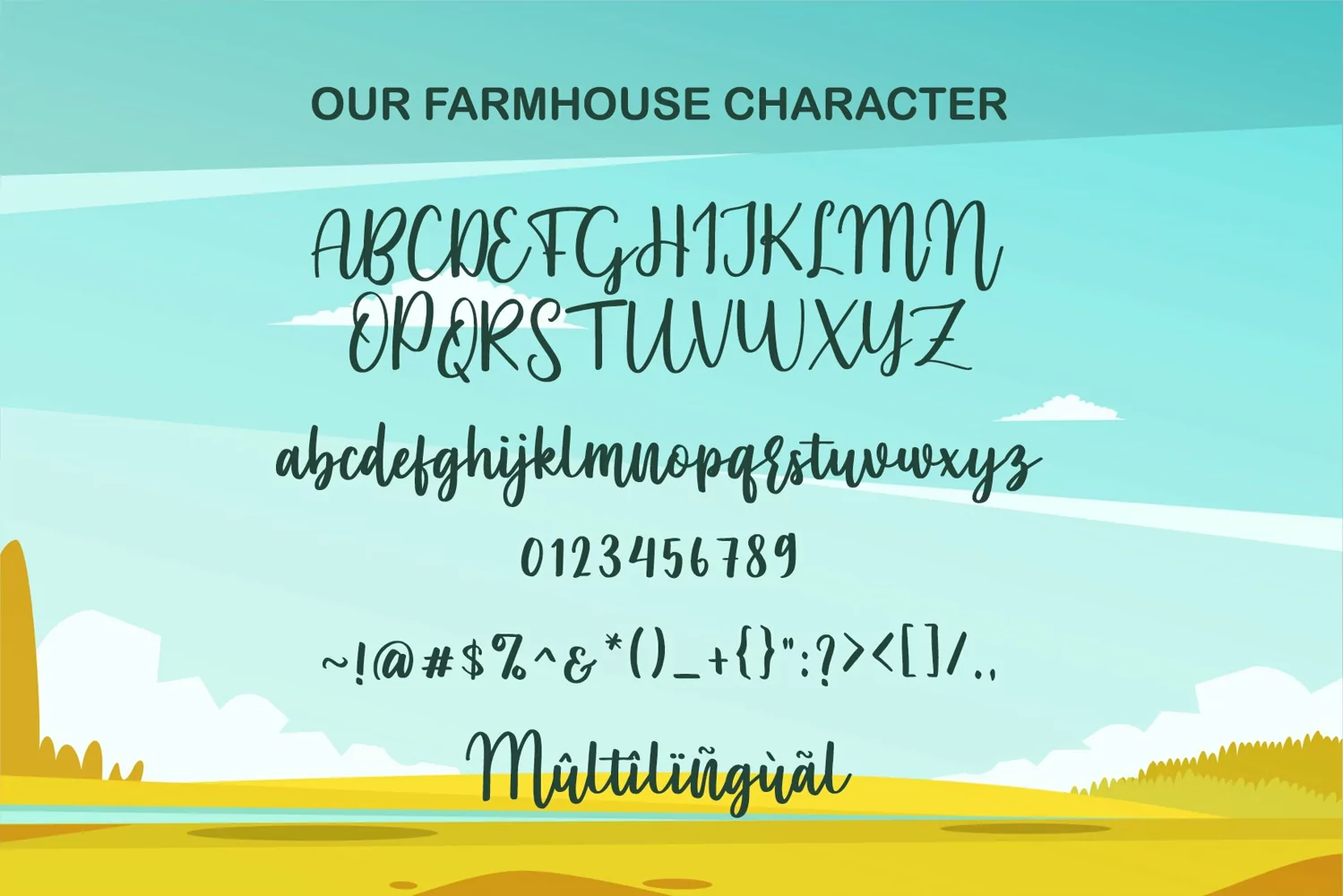
Bark Spears - Handwritten script font
Our Farmhouse is an assertive and distinct script font.
Expertly designed to make your creation look out of this world, this font will look gorgeous on a variety of ideas.
This font is PUA encoded which means you can access all of the glyphs and swashes with ease!
Multilingual Support
Ligature Character